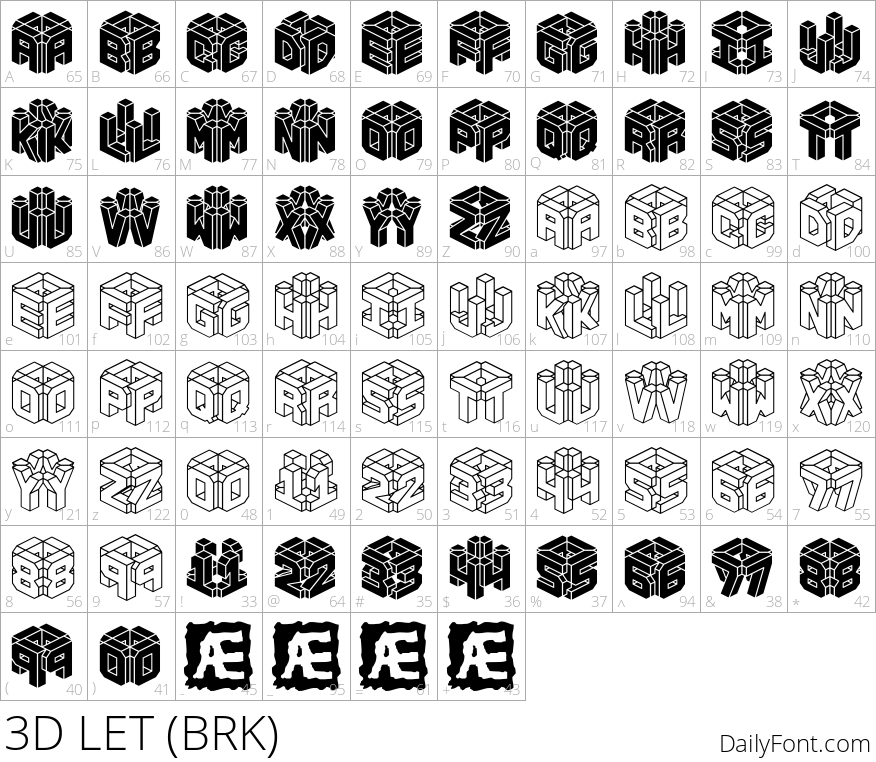
3D LET (BRK) by Brian Kent
This Font is based on the 3D N of the Nintendo 64 Logo. The only
problem was that the N64’s N is connected to make it look cube-like.
Trying to make the rest of the characters look connected wasn’t working
out, so I made all of the characters ‘Offset’ instead of connected.
–All of the lower case letters and #’s are ‘Outline’ charascters.
–All of the Upper case letters and Shift+#’s are ‘Solid’ characters.
>>>(Shift+# means use !@#$%^&*() for the #’s 1234567890)